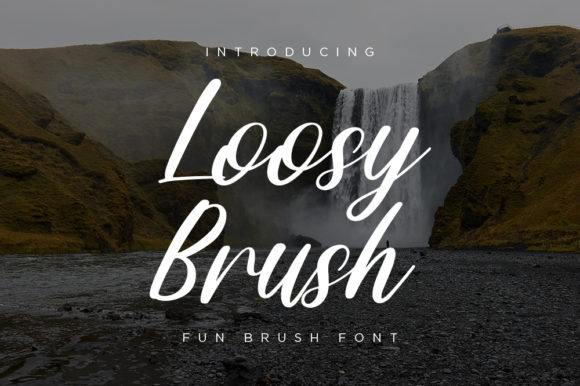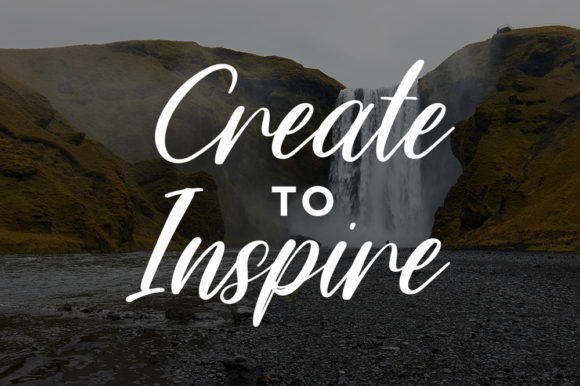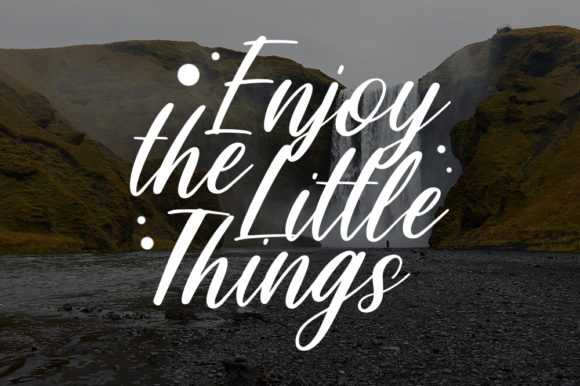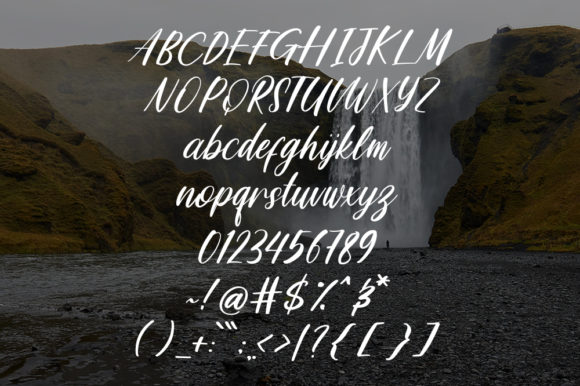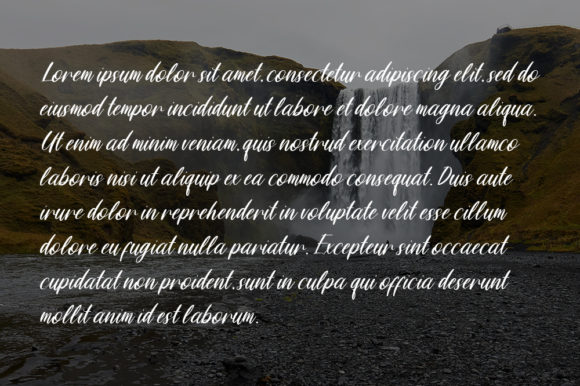
Loosy Brush Font
About Loosy Brush Font
Loosy Brush is an authentic brush pen script. Its build by the stroke of the human hand and delivers incredibly natural vibes.